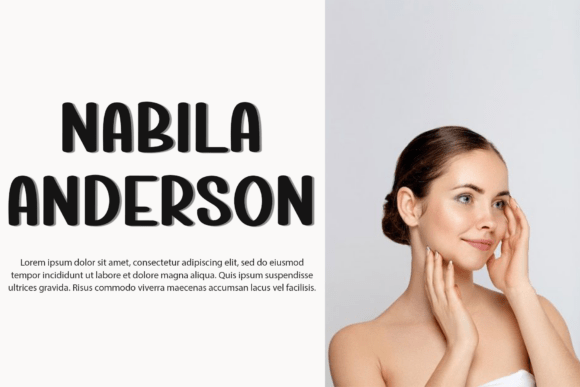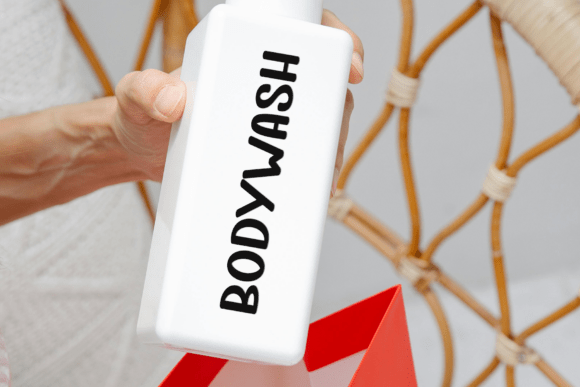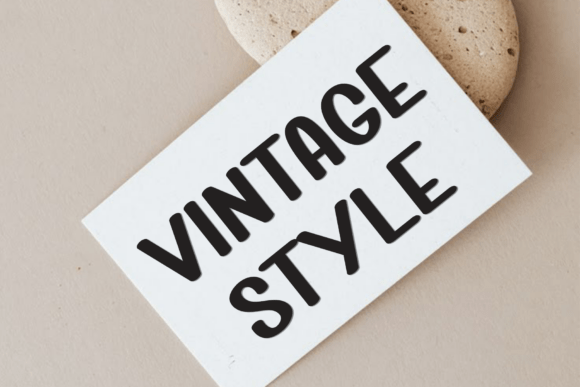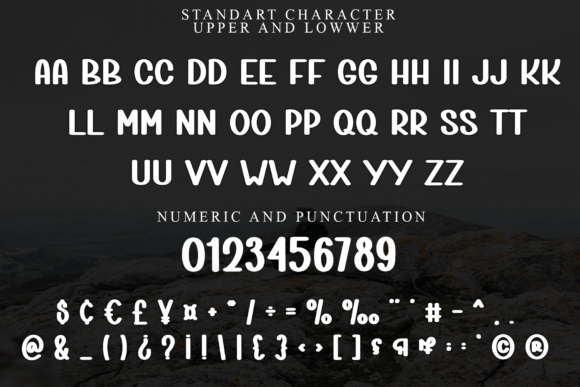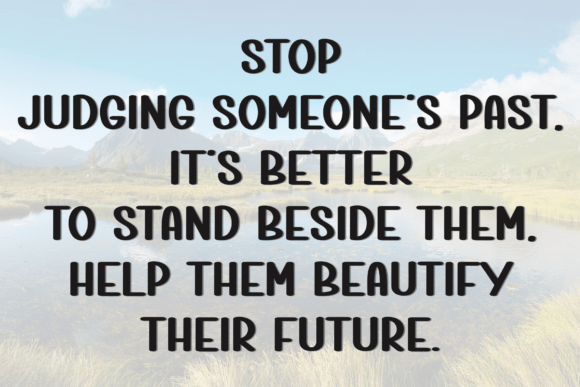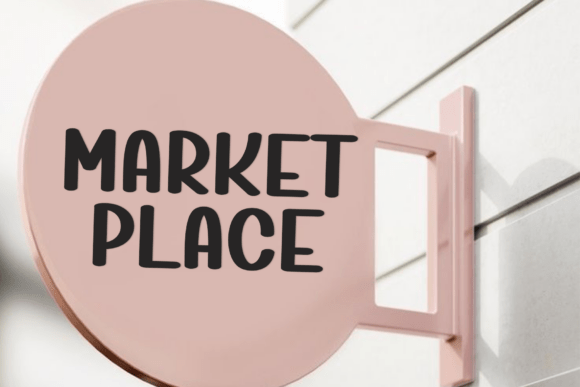
Discover the Delicious Design of Food Network Font
Remember that moment when you finally found the perfect font to match your project’s theme? The excitement of knowing you’ve got the perfect tool to bring your creative vision to life? That’s what we’re about to share with you – a font that will make your designs irresistible: the Food Network Font. This beautiful and eye-catching font is designed to add a soft, unique touch to any project.
Whether you’re a seasoned designer or just starting out, the Food Network Font is an incredible addition to your toolkit. Its distinctive strokes and characters make it a versatile choice for a wide range of creative works, from design projects to crafts and more. With its compatibility across various applications, including Windows and open-source platforms, you’ll be able to use it wherever your creativity takes you.
Key Features of Food Network Font
• Font Family: Food Network Font is a custom-designed sans-serif font, created specifically for the Food Network brand.
• Unique Characteristics: The font features a clean, modern aesthetic with a subtle nod to culinary typography, making it perfect for food-related branding and design.
Food Network Font Review
Overall, I was excited to dive into the Food Network Font, but I have mixed feelings about its usability. ✨ The font’s primary strength lies in its playful and approachable nature, making it perfect for food-related branding or marketing materials. It’s modern, yet nostalgic, which can evoke feelings of comfort and familiarity.
The font’s letterforms are quite unique and creative, which can be a great asset for those looking to stand out in a crowded market. ✨ The Food Network Font is available in a range of weights, from light to bold, giving users the flexibility to adapt it to their specific needs.
• ⚠️ The font may not be suitable for formal or professional applications, as its playful nature may come across as unprofessional.
• ⚠️ The font’s unique letterforms can be quite decorative, which may make it difficult to read at smaller font sizes.
• ⚠️ The font’s availability in a range of weights is both a strength and a weakness. While it provides flexibility, it can also lead to a sense of inconsistency in branding materials.
Overall, I would recommend the Food Network Font for food-related branding or marketing materials, but with caution. It’s a fun and creative font, but it may not be suitable for all applications.
The Food Network Font is commonly used for:
• Food and beverage branding
• Cookbooks and recipe websites
• Food-related advertising and marketing materials